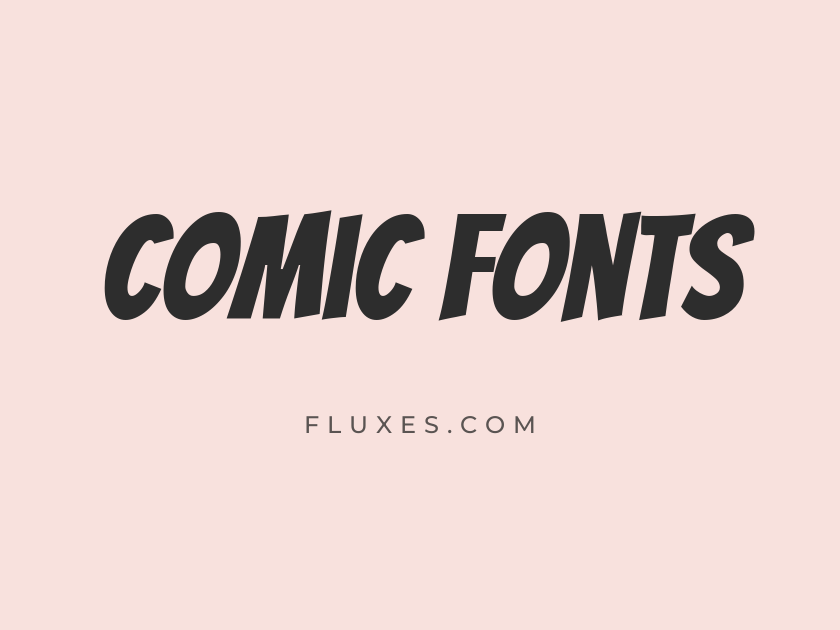
70 Best Comic Fonts
Comic lettering has to do a lot of acting for one piece of type: it shouts, whispers, cackles, and occasionally explodes, sometimes all in the same panel. Whether you are lettering a webcomic, mocking up a superhero poster, designing a graphic novel cover, or just need a proper free alternative to Comic Sans for a school newsletter, the right typeface carries as much personality as the artwork beside it. Google Fonts has quietly become a genuine resource for this kind of work, stacked with hand-drawn scripts, blocky superhero display faces, and grimy horror-comic lettering that costs nothing to license and drops straight into any website.
Bangers is the default reach for a reason: those inflated, slightly wobbly caps look like they were lettered by an inker on deadline, and they read as pure comic-book action at any size. It carries onomatopoeia beautifully, whether that is a punch, an explosion, or a villain’s cackling threat.
Use it for cover titles and sound effects rather than long copy; past a few words it starts to feel like shouting, which is exactly the point.
Chunky, bouncy, and just a little goofy, Luckiest Guy has the rounded confidence of a Saturday-morning cartoon logo. It pairs well with bright color fills and drop shadows, which is likely why it shows up so often on mascot branding and kids’ comic covers.
Alfa Slab One brings serious weight and a hint of vintage circus poster to comic headlines. It works especially well for pulp adventure titles where you want gravity without losing playfulness.
Titan One is thick, rounded, and cheerfully aggressive, built for badges, sound effects, and any headline that needs to feel like it is bursting off the page.
Righteous has a retro sci-fi comic feel, part 1970s poster, part arcade cabinet. It suits hero names and issue titles that want swagger without going full cartoon.
Paytone One
Rounded and friendly with just enough heft, Paytone One reads clearly at small sizes, which makes it a smart pick for comic panel labels, captions, or app interfaces built around a comic theme.
Fugaz One
Fugaz One leans forward with subtle diagonal cuts that suggest motion, a nice fit for action-comic logos and speed-themed superheroes.
Bevan is a slab serif with comic-poster bones, sturdy enough for a graphic novel title yet loose enough to avoid feeling corporate. It sits comfortably alongside painterly, pulp-adventure cover art.
Bowlby One is inflated and cartoonish in the best way, the kind of lettering you would expect on a monster-movie poster or a 90s cereal box tie-in comic.
Concert One
Concert One keeps its rounded caps friendly and legible, a solid choice when a comic project needs bold display type that still plays nicely with body text.
Chango
Chango has a stamped, slightly rough edge that reads like a rubber-stamped label on a case file. It suits detective and crime comics that want texture without going fully distressed.
Passion One is rounded, sturdy, and unfussy, a dependable workhorse for comic subheads and pull quotes that need to stand out without stealing the scene from a flashier display face.
Lilita One
Lilita One is soft, plump, and instantly friendly, closer to a kids’ comic or animated series logo than a gritty graphic novel. It plays especially well in bright, saturated color palettes.
Modak carries the bubbly, candy-colored energy of a children’s comic strip. It is built for short, punchy titles rather than paragraphs, and it loses clarity fast if crammed into small captions.
Shrikhand has a swollen, syrupy weight with roots in Gujarati sign painting, giving comic titles an exotic, celebratory flavor that few other display faces on this list can match.
Sigmar One
Sigmar One is bold and rounded with a friendly, almost inflatable look, well suited to comic app logos or merchandise where the type needs to read instantly from across a room.
Emblema One
Emblema One has the chiseled, condensed presence of a vintage comic masthead, a good option when Bangers feels too playful but you still want a punchy, energetic headline face.
Rammetto One has a rounded, three-dimensional quality that suits lighthearted adventure comics, the kind set on a beach or in a jungle rather than a gritty city.
Keep horror and melting display faces like Creepster or Nosifer reserved for short bursts; they lose clarity fast in body text.
Comic lettering rewards a bit of restraint even when the genre itself is loud. Pick one hero font for the shout, one supporting script for the whisper, and let the free options above do the acting.